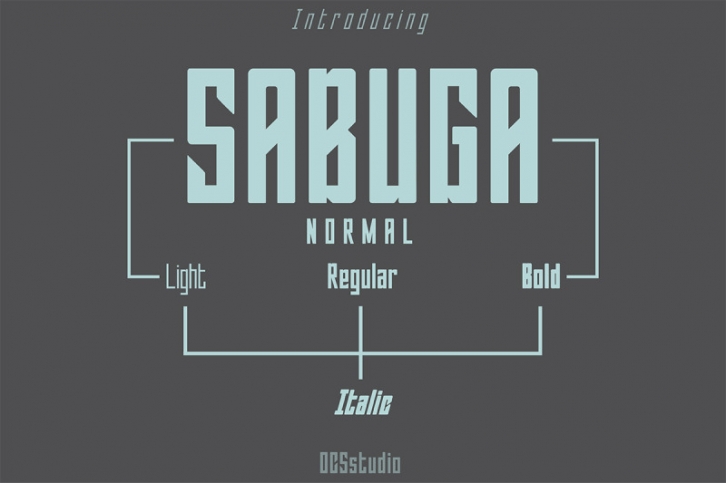
Sabuga font Normal, was created by OCSstudio in 2019. This font is a modern sans serif font that is carefully crafted and clean. The Sabuga font is perfect for designs template, events, invitations, escort cards, table numbers, quotes, displays, logos, blog slides, special addresses, stamps, packaging, greeting cards, websites, and more.
- Light,Regular,Bold ( including Italic )
- Basic Latin A-Z and a-z
- Numeral & Punctuation
- 474 Glyphs
- 2 Alternate